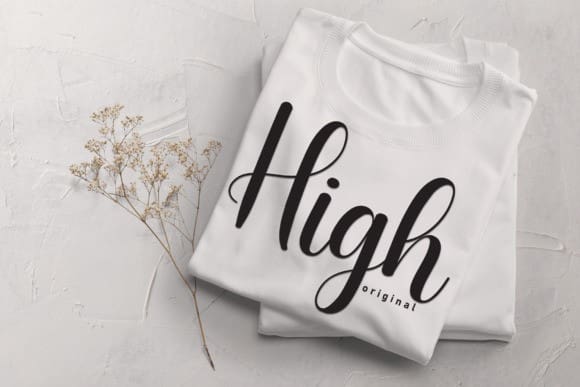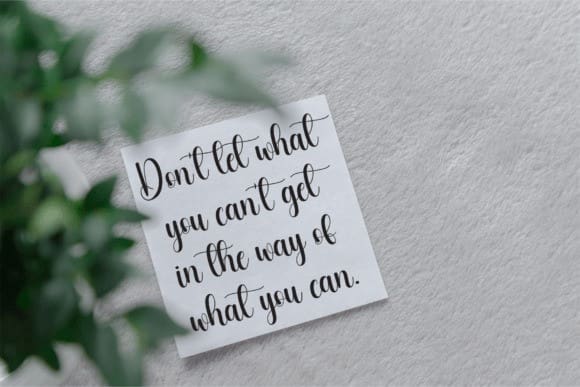
Daddy Cute Font
Daddy Cute Font is an exquisite handwritten font, masterfully designed to become a true favorite. It maintains its classy calligraphic influences while feeling contemporary and fresh. Fall in love with it and bring your projects to the highest levels!